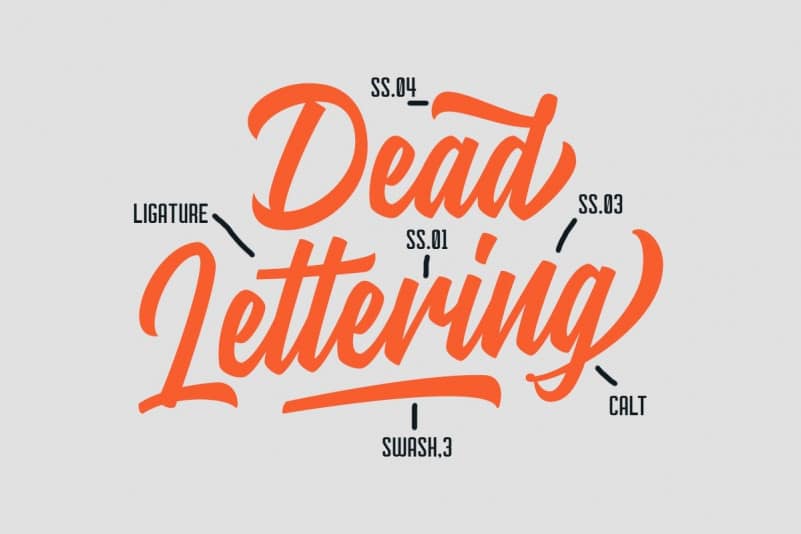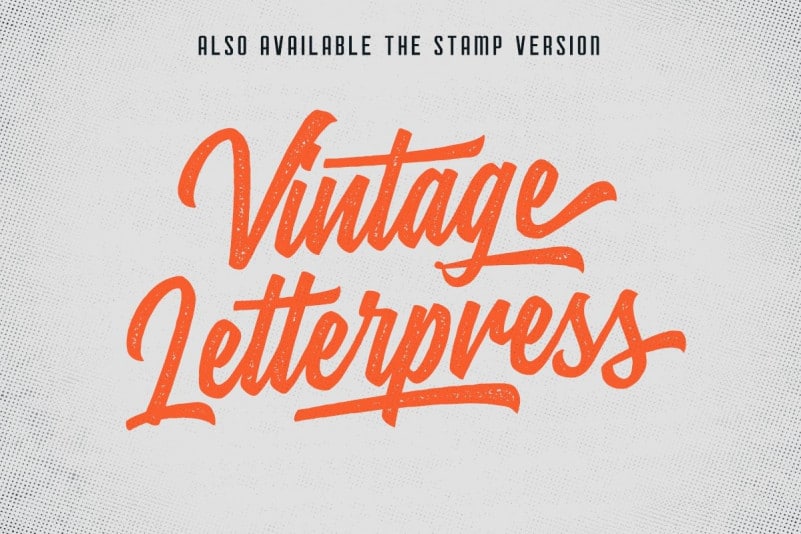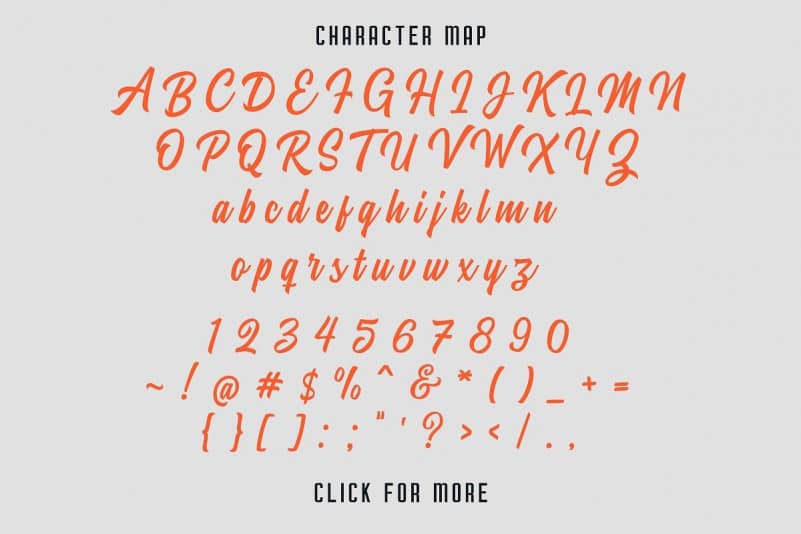
Stanley Calligraphy Font
Introducing Stanley Calligraphy Font. This font was designed by handwriting, and it has a modern and unique forms of calligraphy, the writing style is very natural. This font is designed and shared by Martype Co. It’s a family of TWO script font designed with carefully handcrafted. Also suitable for branding, T-shirt, Wedding Invitation, Vintage Design, Logotype, and any project. With two style make you easier to design everythings, and a sans bonus to make better design.